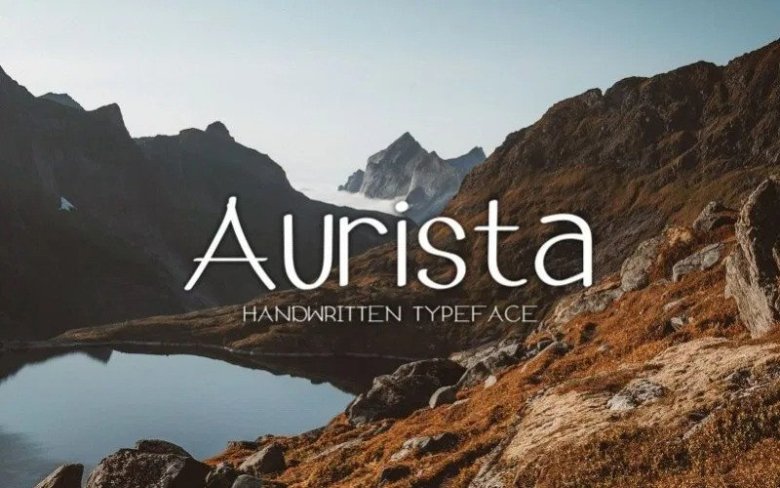
Aurista Handwritten Sans Font
Aurista is a handwritten sans serif font with a thin and casual mood. Suitable for poster design, banner, logo, and all your design projects.